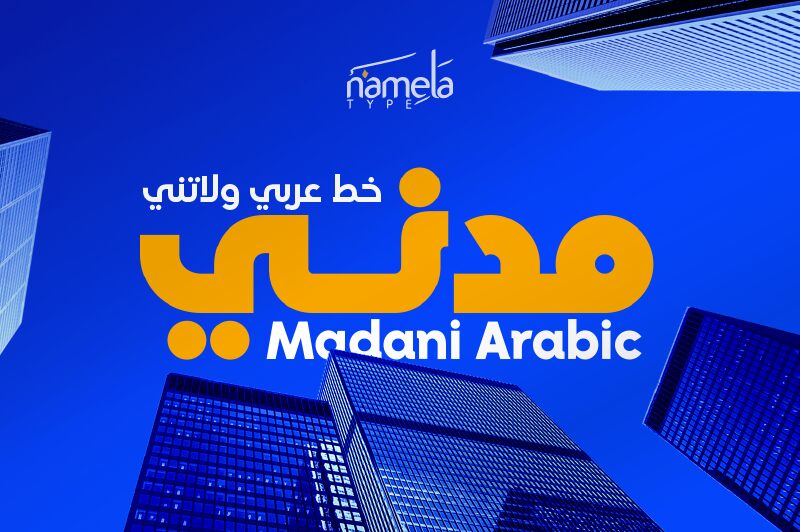
Madani Arabic DEMO Bold
Madani Arabic Bold font by Namela Type is a strategic combination of bold elements and geometric influences. Its modern professional style glows with corporate elegance, embracing clean streamlined visuals. This Arabic fonts accentuates impressive designs and makes them truly unforgettable.
Use it in architectural magazines, construction publications, news headlines, titles, political campaigns posters/flyers, business branding projects (name cards/logo/stationery)..